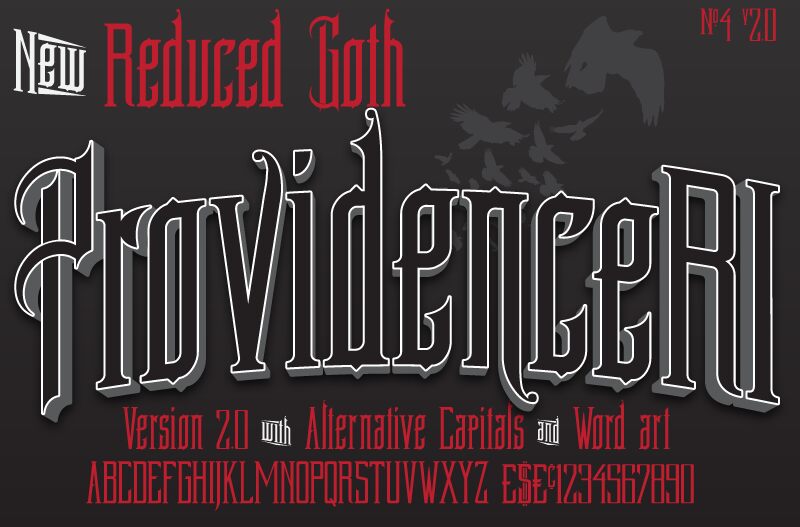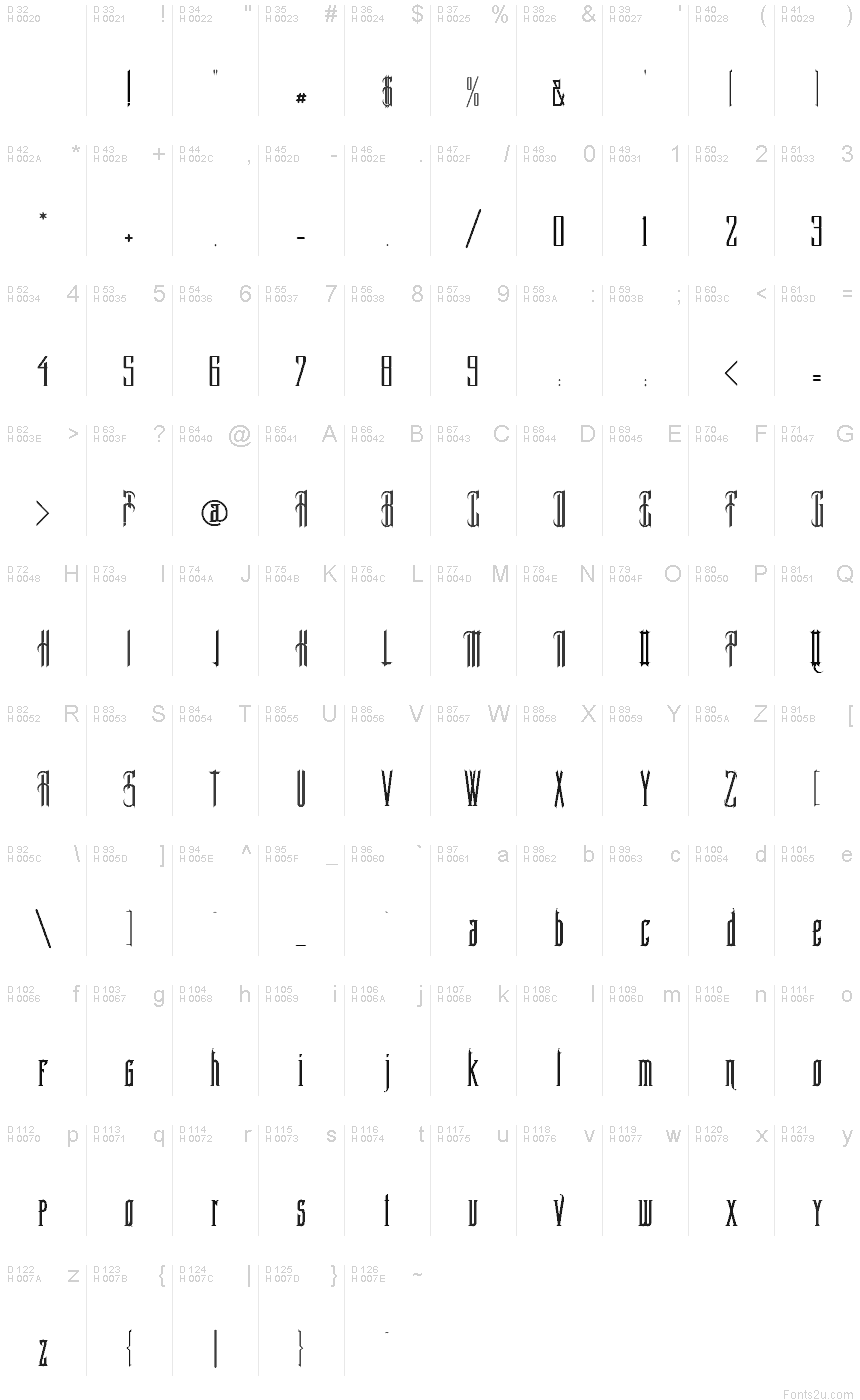
ProvidenceRI
NEW version 2 featuring alternative serif capitals, word art and tweaked metrics.
ProvidenceRI was spawned from the typography of a 1900 Sanborn Perris Map Co. Ltd. map cover for Providence, Rhode Island, USA and in part from Goth watching in Whitby, North Yorkshire, UK, during Goth Weekend, 2014 (Its a thing. Google it!).
The result is ProvidenceRI. Less Goth than the Sisters of Mercy, more Goth than Michael Bubl.